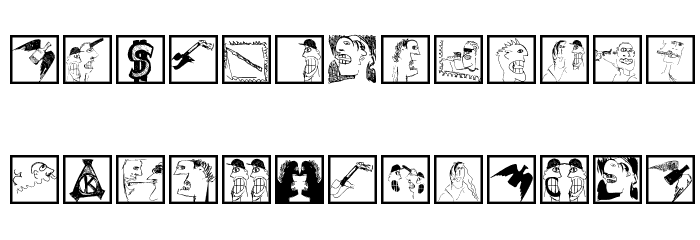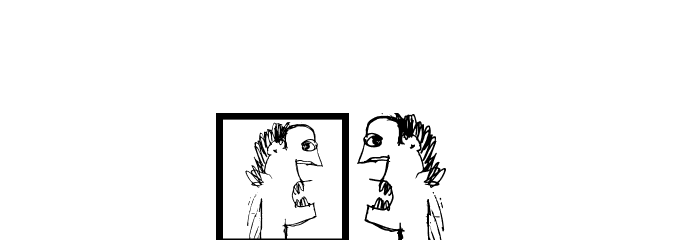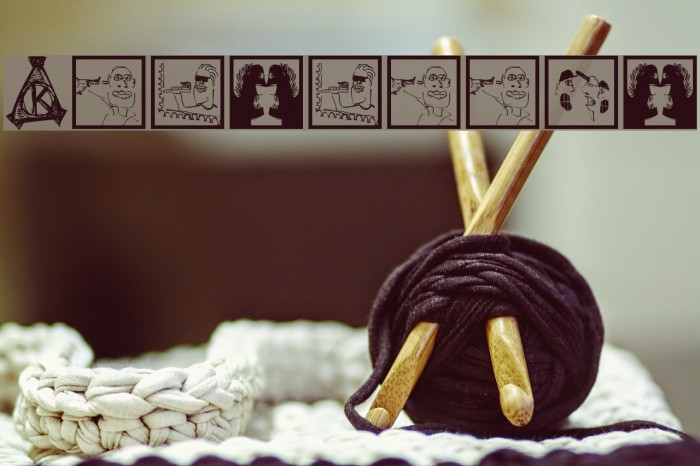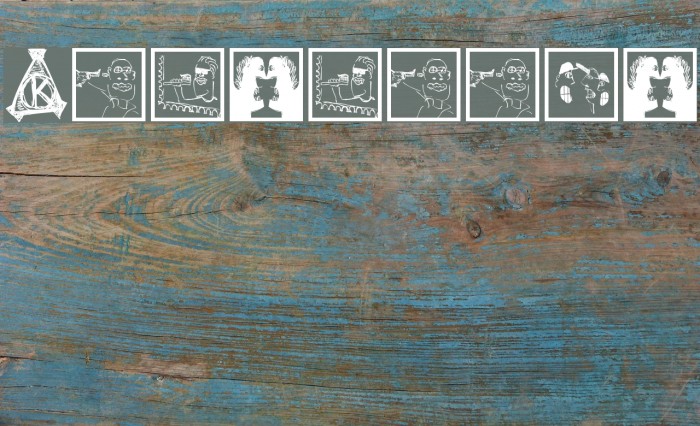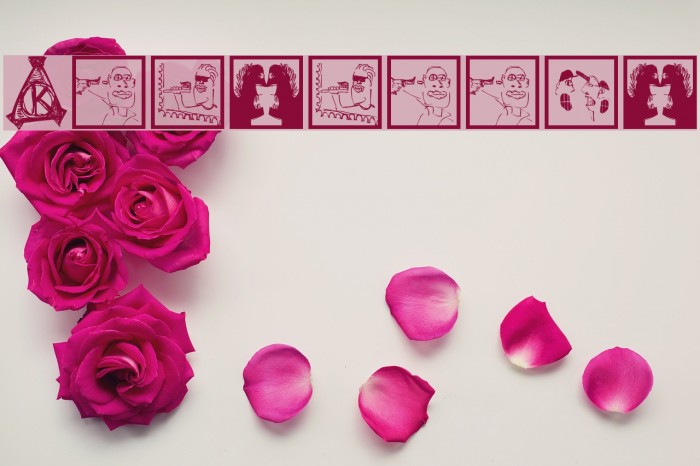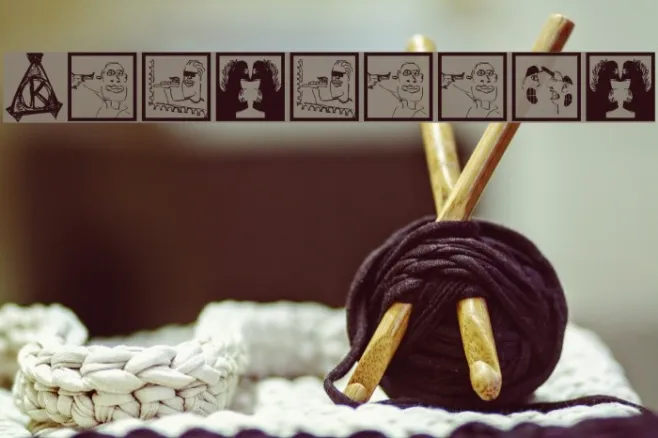
Olisillus Font
This font is a highly creative and illustrative design, featuring characters that are integrated with cartoon-like drawings. Each letter and symbol is uniquely crafted with a whimsical and artistic style, incorporating various human and animal figures, as well as abstract elements. The overall appearance is playful and imaginative, making it stand out as a decorative and expressive typeface. The characters are enclosed in square frames, adding a structured yet dynamic feel to the font. This design is ideal for projects that require a bold and artistic statement.
A whimsical, cartoon-like font with unique illustrative characters.
- Proposed Projects: Ideal for comic books, children's books, creative posters, and artistic branding.
- Use Case: Logos, Posters, Artistic Projects